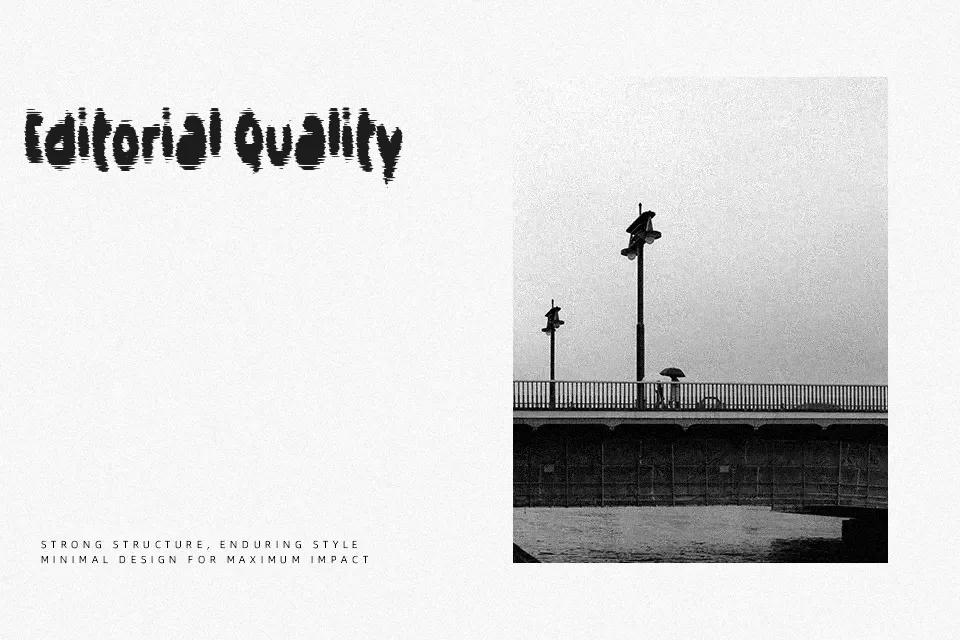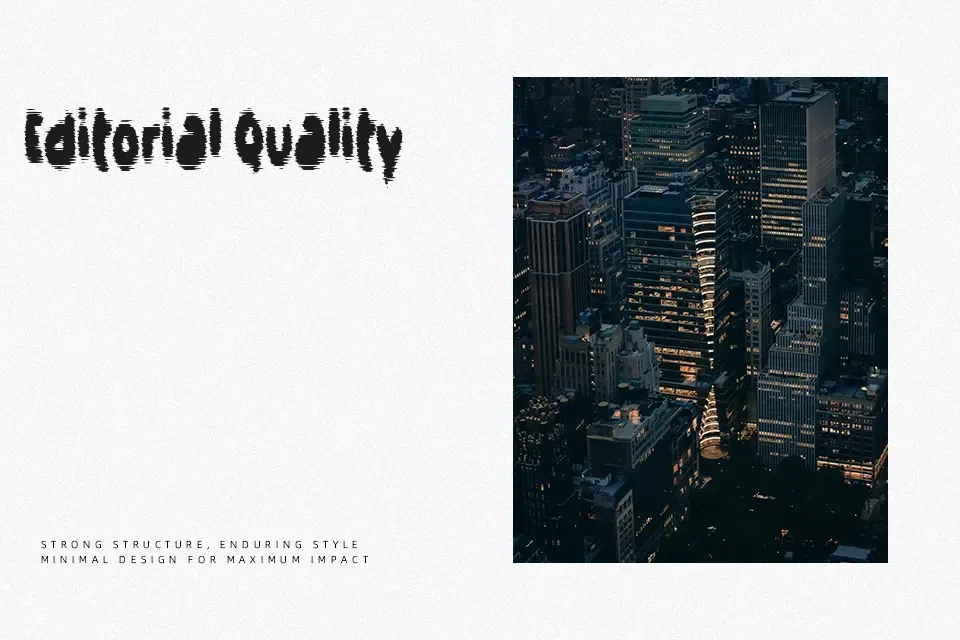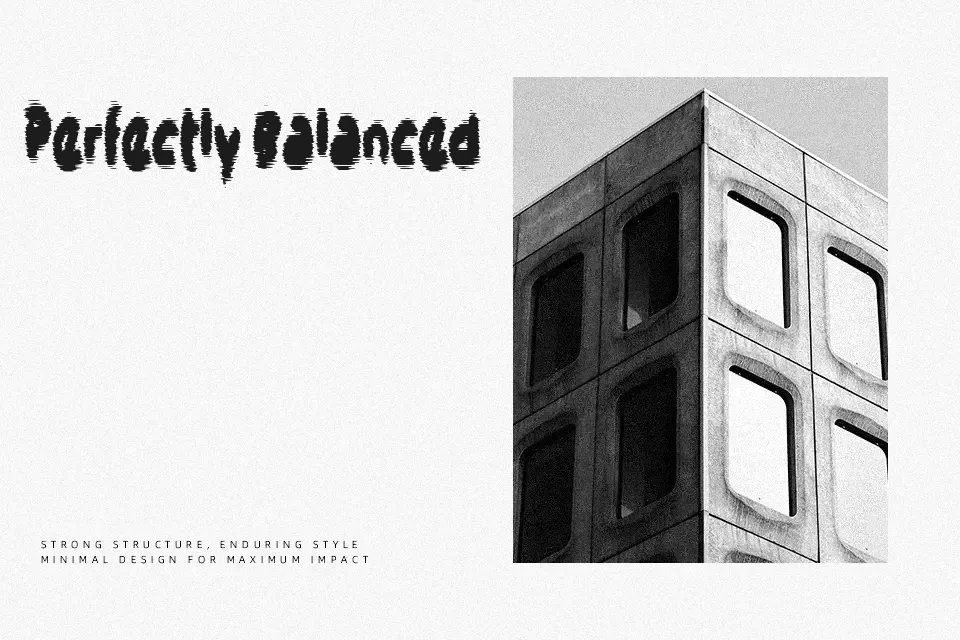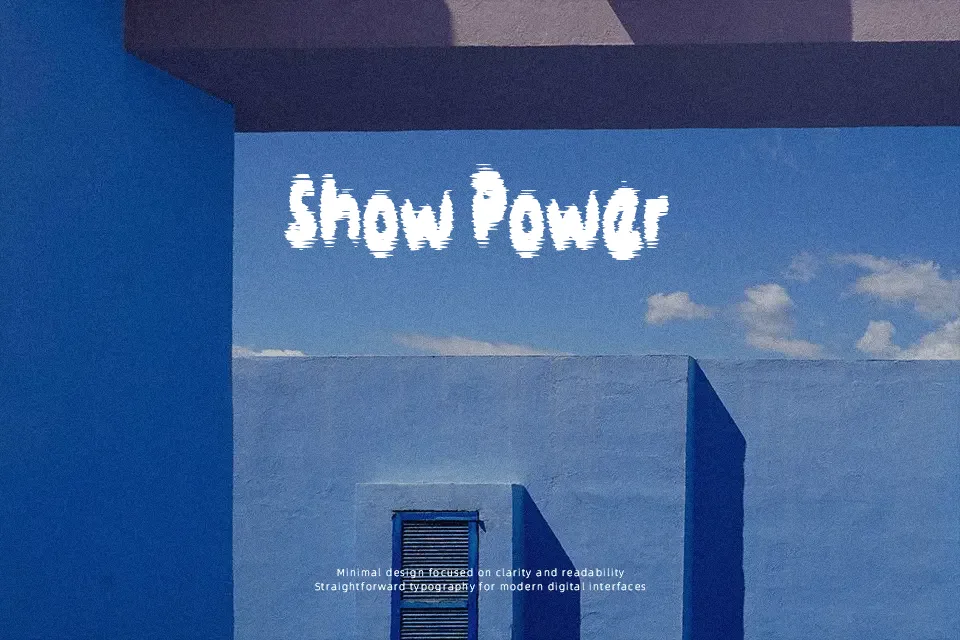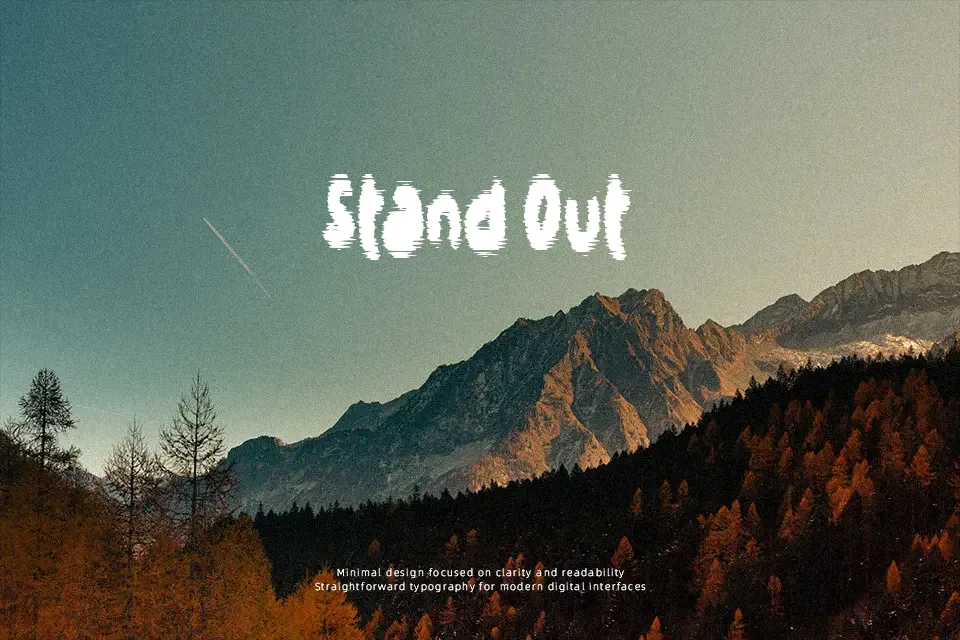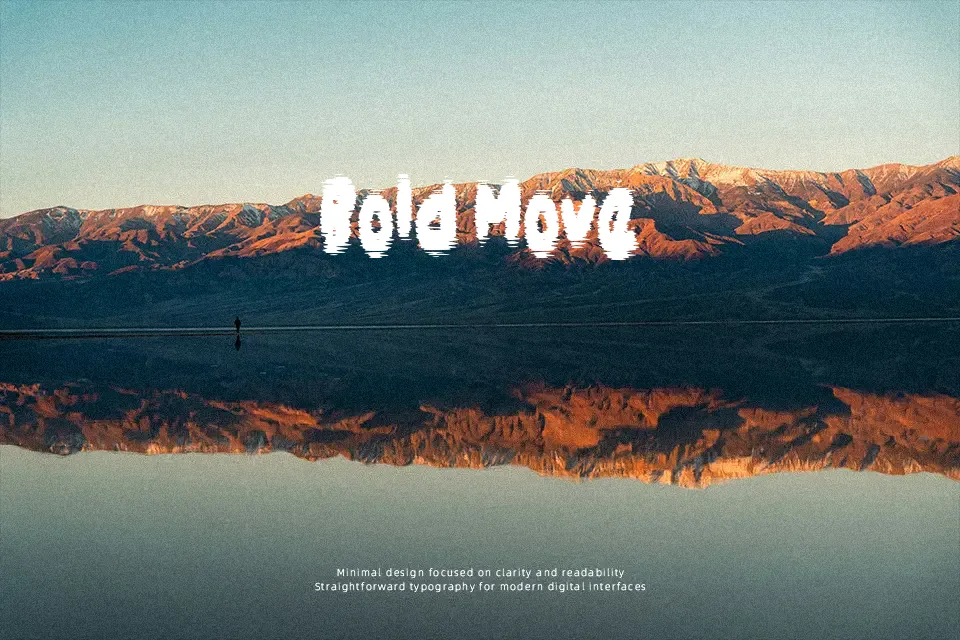
c Corak Font
c Corak is a distorted display typeface with fractured strokes, inconsistent curves, and uneven spacing that make every word look slightly glitched and worn. The structure leans toward uppercase headline work, with shapes that feel hand-tweaked rather than mechanically precise. It carries a noisy, experimental mood, closer to distressed grunge lettering than to clean sans serif or serif styles. Use it for music artwork, streetwear graphics, underground event posters, or social media visuals where a polished corporate feel would be out of place. Because of its distortion and texture, it tends to lose legibility at small sizes and in dense paragraphs, so it works best when you give it space and keep supporting text in a simpler companion font.
distorted posters and flyers
album or mixtape covers with a rough edge
streetwear or alternative brand graphics
edgy social media title slides
formal corporate branding systems
small UI labels or navigation text
projects needing a clean, neutral voice
Perfect for advertising, branding, and headline, with a artistic and decorative style.